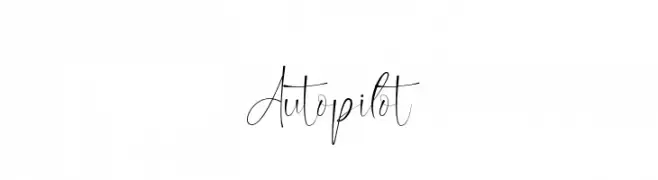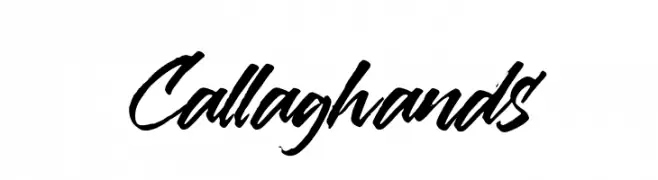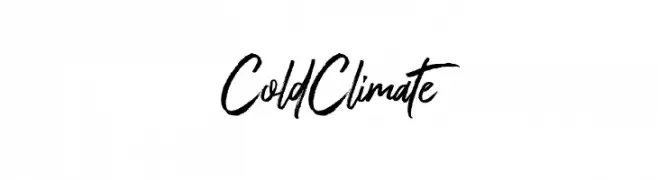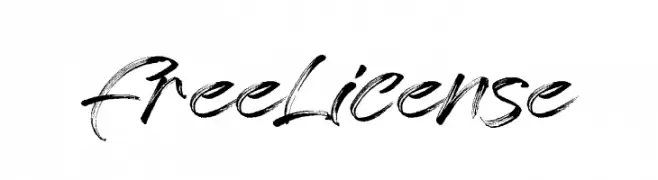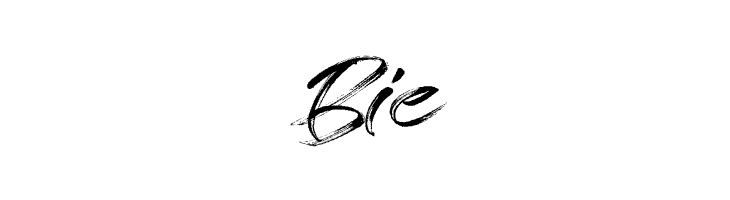
An elegant, flowing script font with graceful loops and sweeping curves.
A dynamic, brush-style handwritten font with bold, sweeping strokes.
A bold, brush-style font with dynamic, sweeping strokes and a handwritten feel.
A dynamic, expressive handwritten font with fluid, sweeping strokes.
A dynamic script font with elegant, sweeping strokes and artistic flair.
A flowing, cursive font with elegant, sweeping strokes and ornate flourishes.
A dynamic, cursive font with bold, sweeping strokes and elegant loops.
A dynamic and expressive handwritten font with fluid, sweeping strokes.
A decorative and artistic font with fluid, sweeping strokes and high contrast.
A bold, cursive script font with dynamic, sweeping strokes.